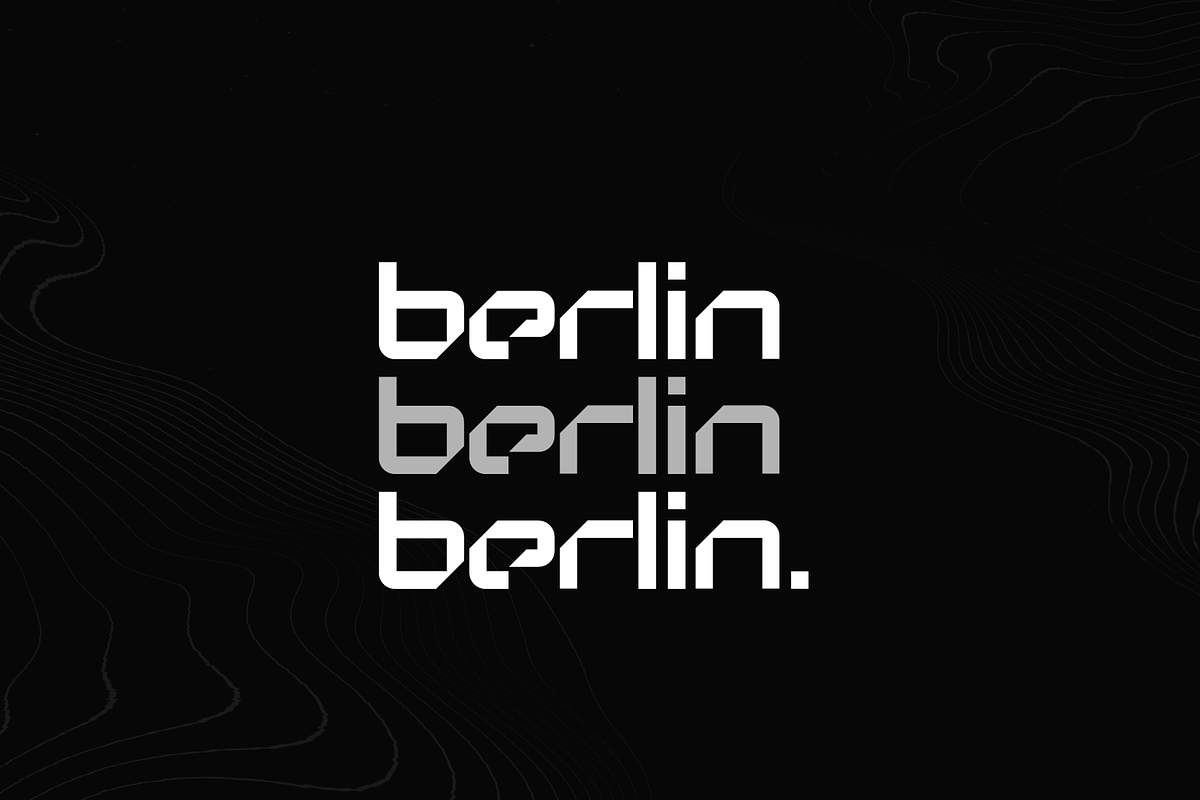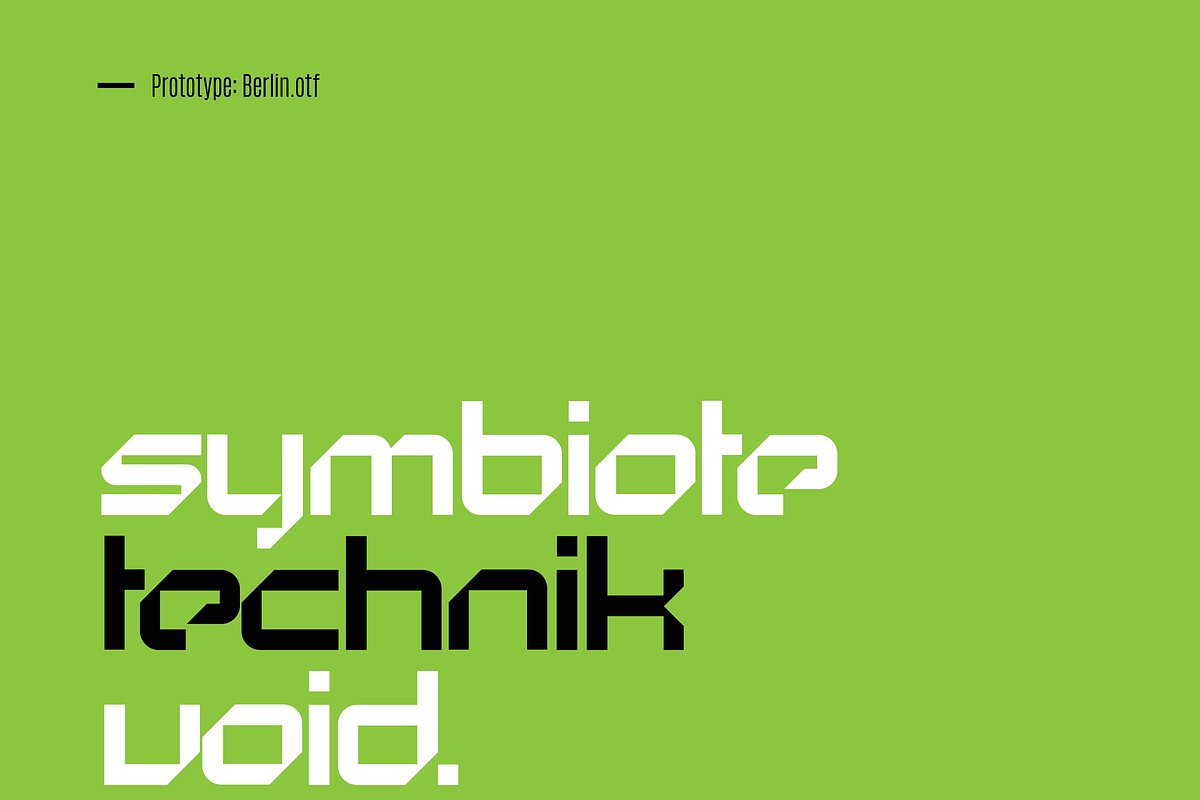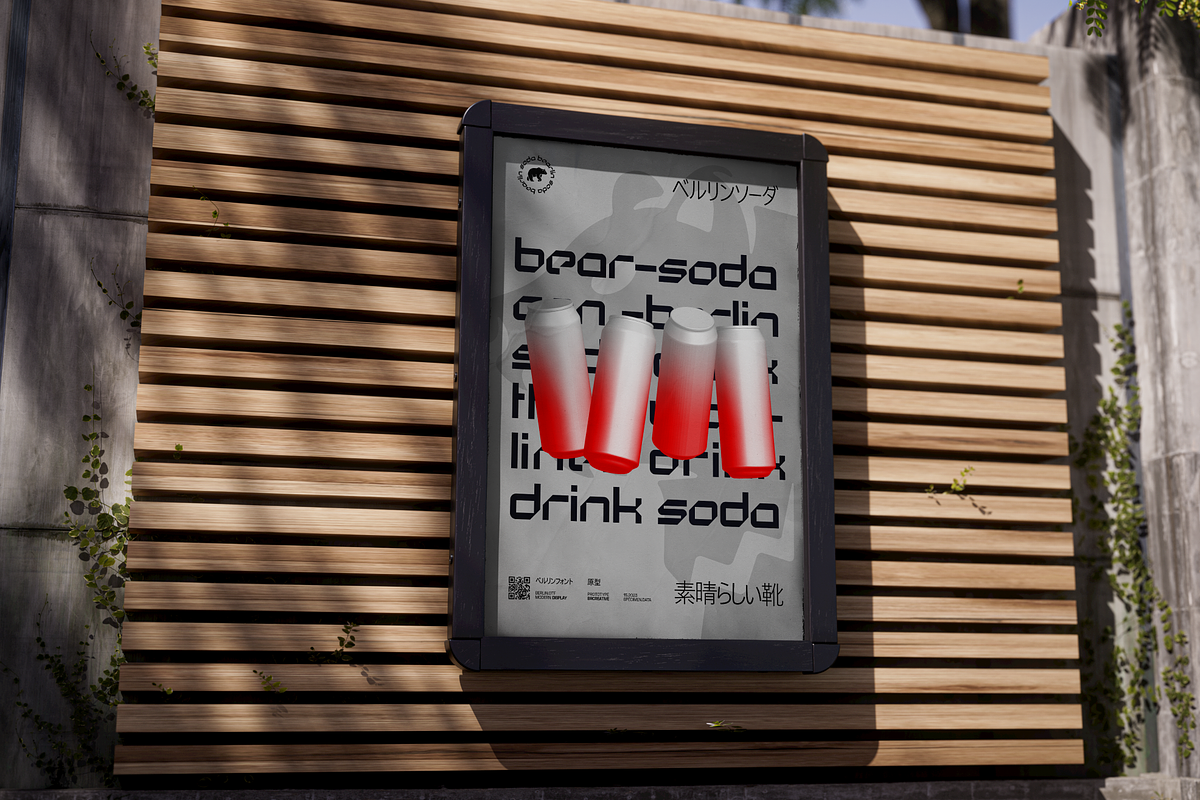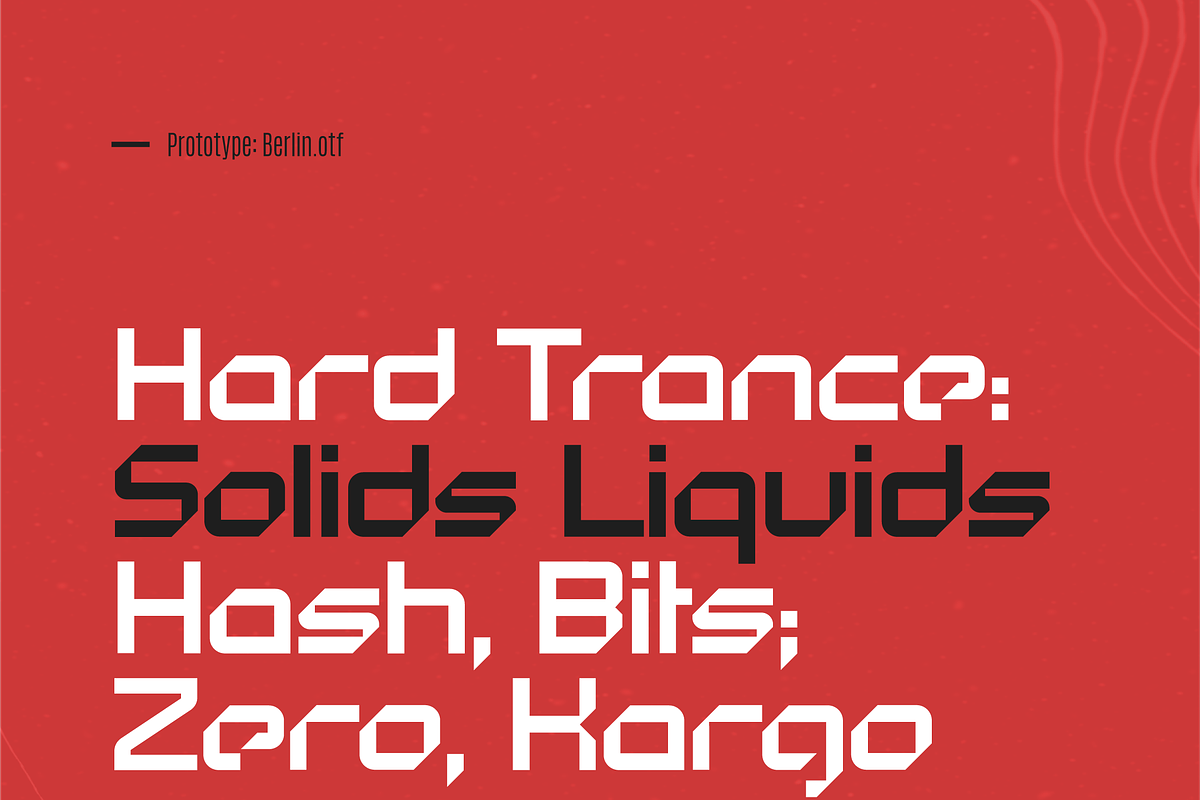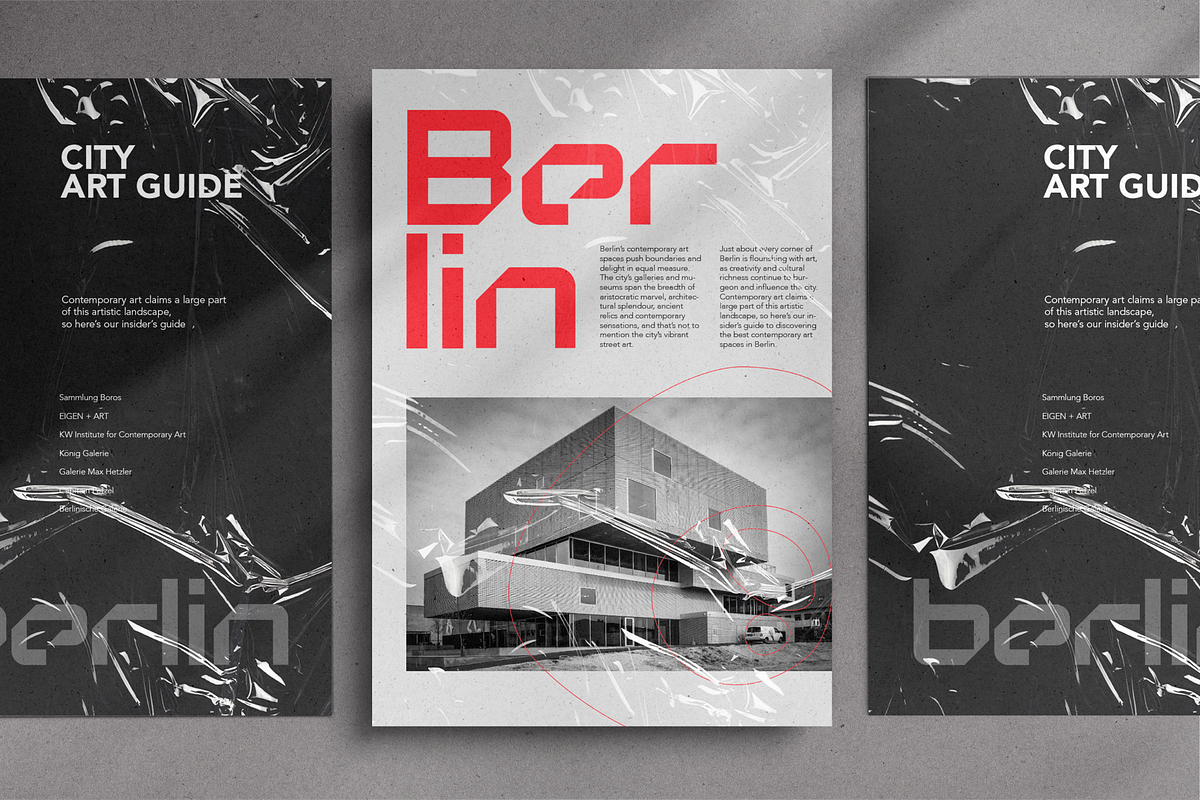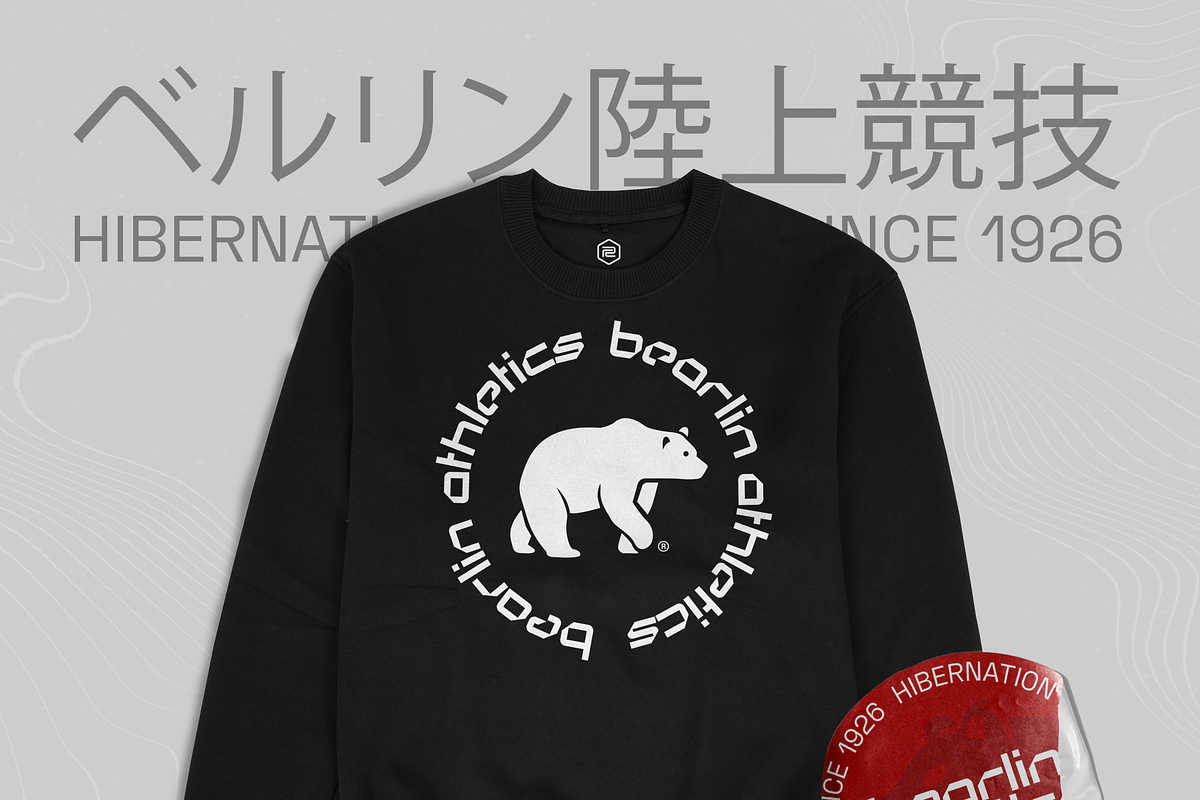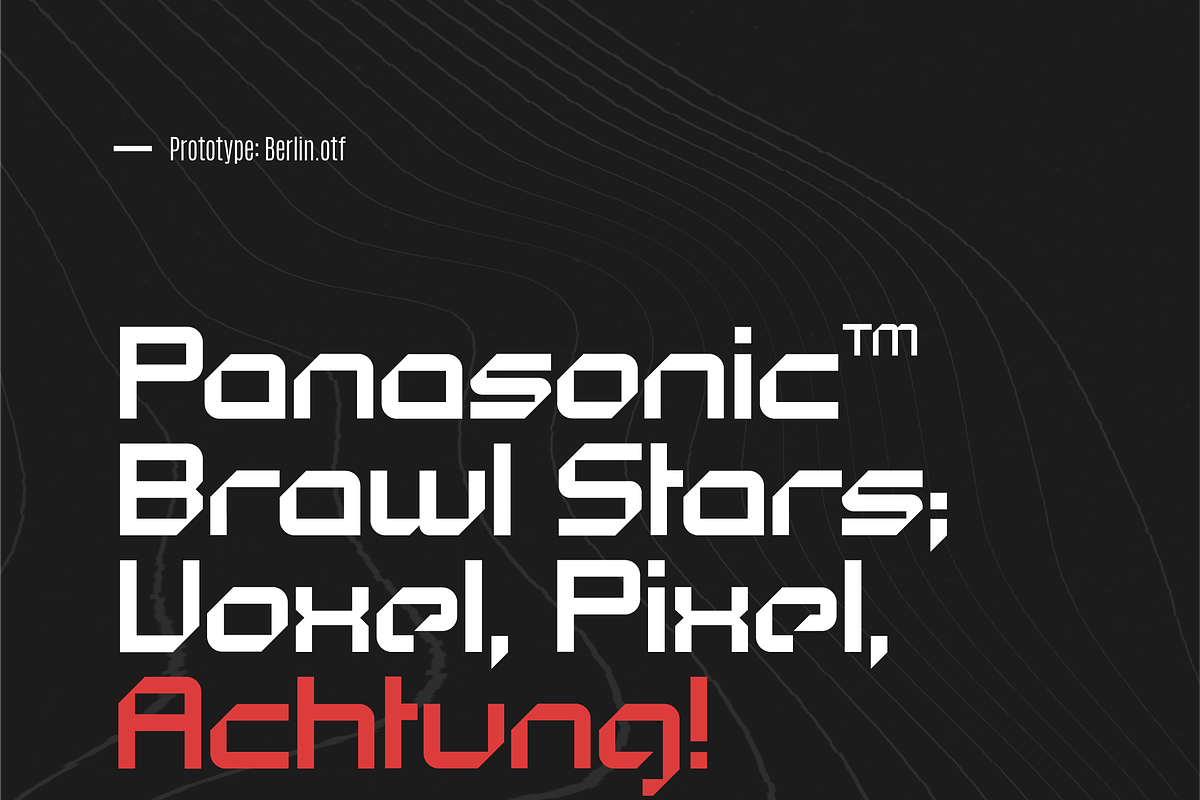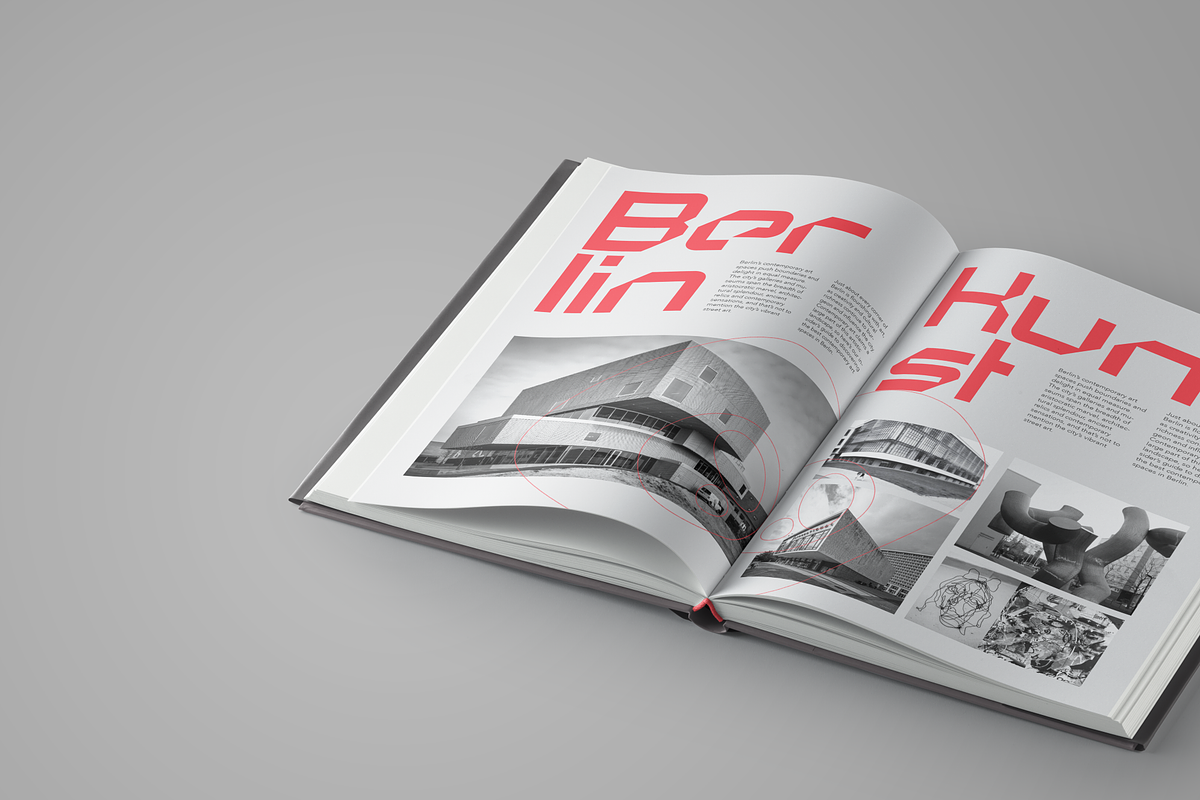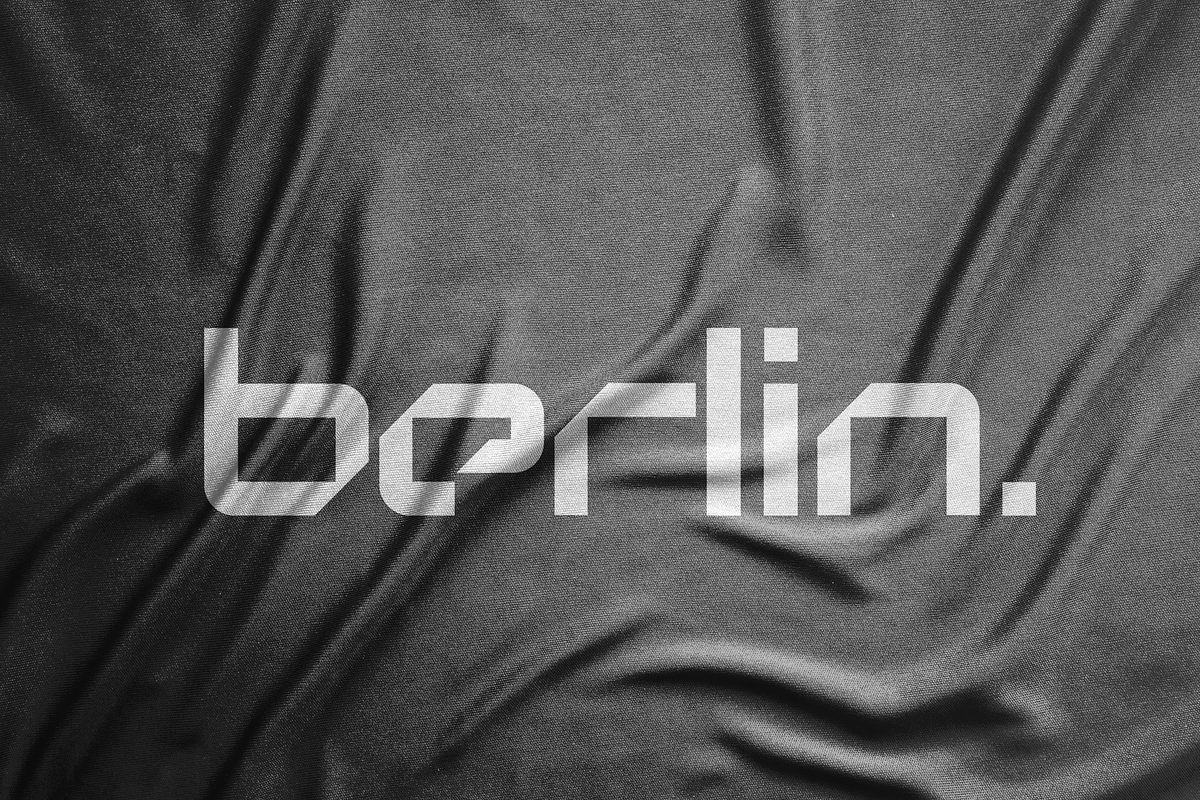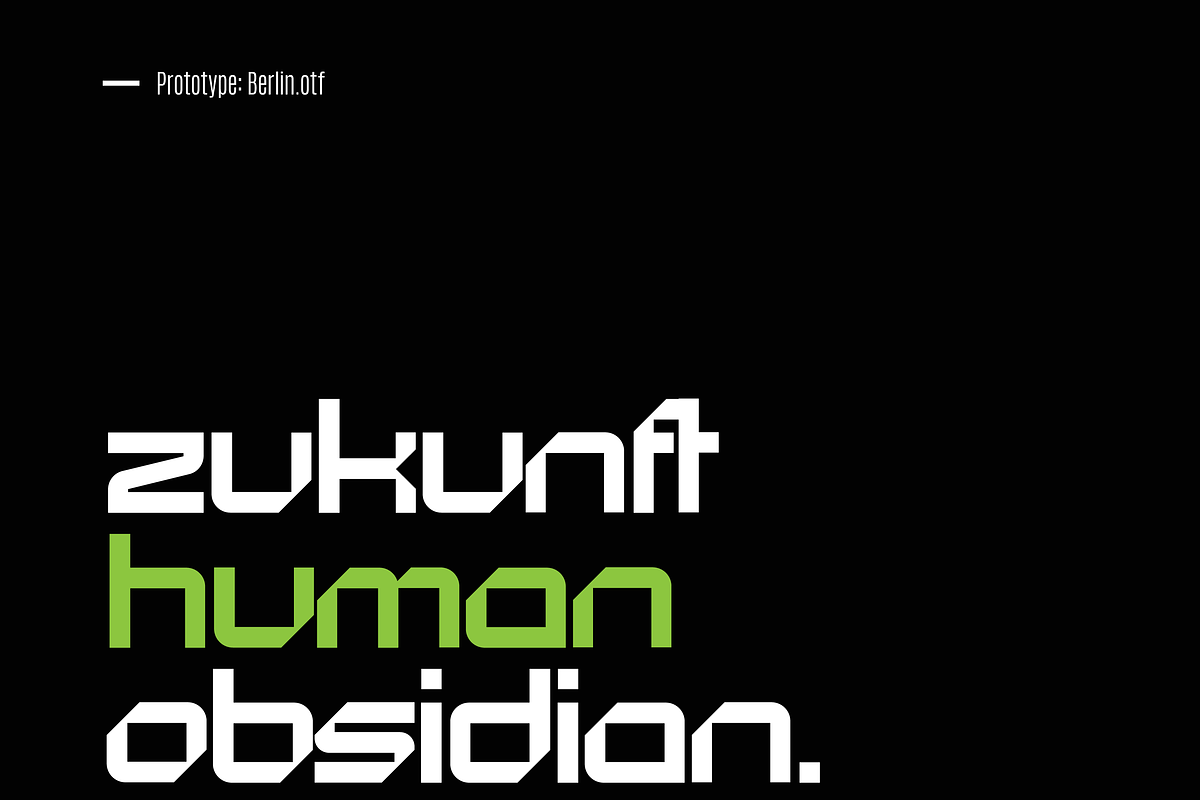
Berlin
A modern geometric, futuristic typeface with a retro touch. Initially created the ‘berlin‘ lettering which was used as part of the logotype for the Hackaday Berlin event. Developed to a fully usable font, lower caps, and uppercase. Included with the normal font is also Berlin Dots, a dotted rendition of the normal variant.